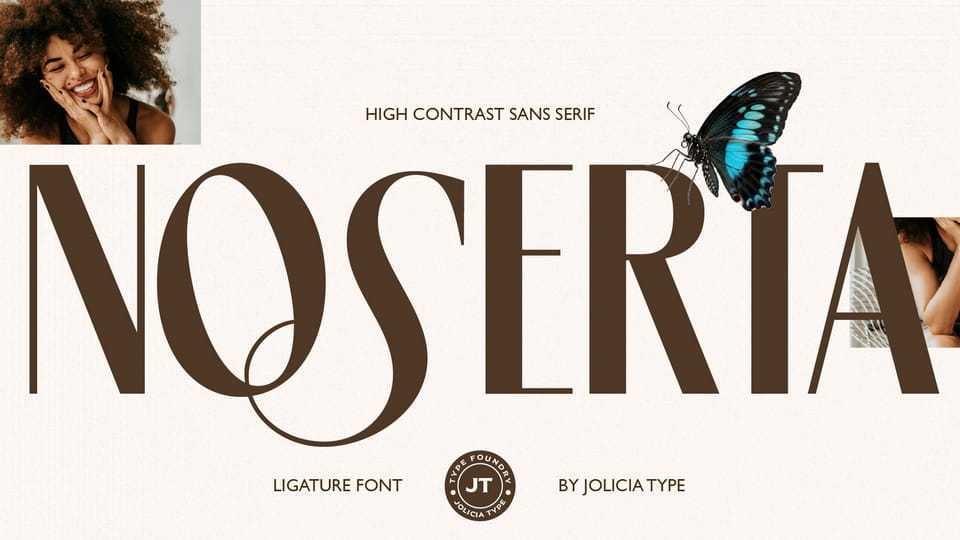
Download Noserta font, a modern high-contrast sans-serif typeface designed to deliver elegance, clarity, and a strong contemporary presence. Featuring a refined balance of bold vertical strokes and delicate thin lines, Noserta offers a luxurious yet confident visual character.